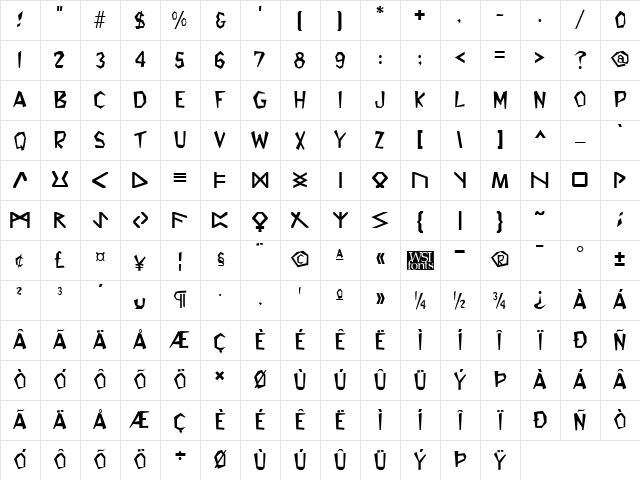
Glyphics Regular
Glyphics Family
Glyphics Regular
Design Context for Glyphics
Glyphics is a composed and adaptable typeface that performs quietly and consistently across a wide range of design contexts.